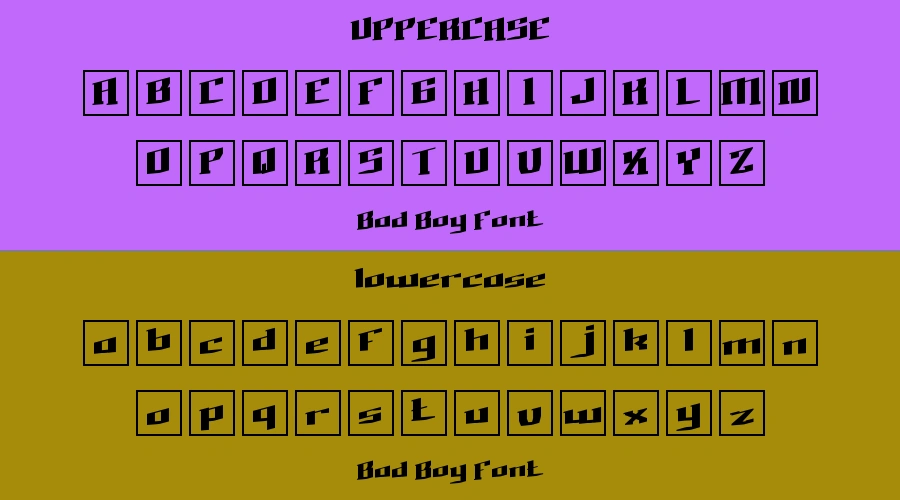
About Bad Boy Font
Bad Boy Font stands out for its distinctive combination of impactful forms and visual comfort. Ideal for social media content, it provides the adaptability and practical utility that professional projects demand. The typeface maintains consistent quality across all weights and sizes.
Key features include refined pressure variations and practical case-sensitive forms, enhancing typographic expression. In brand manuals applications, Bad Boy Font demonstrates exceptional body text reading. The ear placement and regulatory compliance contribute to its distinctive character and professional appeal.